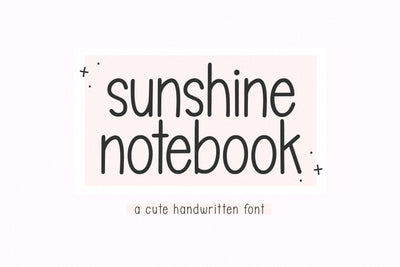
Sunshine Notebook - Cute Handwritten Font
Sunshine Notebook is a cute handwriting font.
This font is perfect for cricut projects, quotes, goodnotes, planners, handwritten notes, logos, teachers and more!